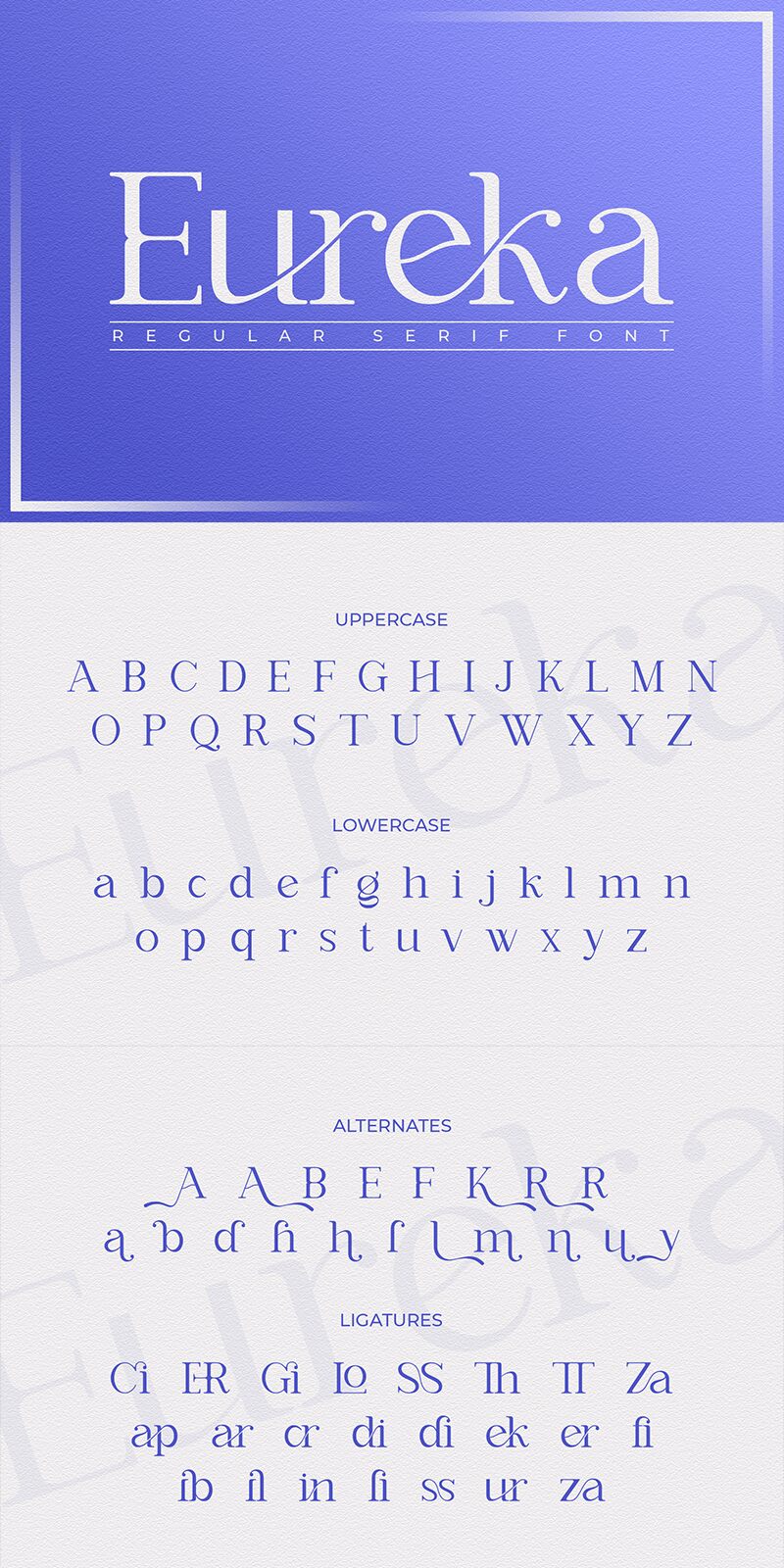
Eureka
Eureka font by Ahmad Riqi is a free serif font that displays sleek elegance and sophisticated design. The characters carry a classic aesthetic with refined appearances and subtle endings which make them always maintain their legibility even at small sizes. A contemporary touch always grants uniqueness thanks to the thin body which appears bold whenever it’s needed.